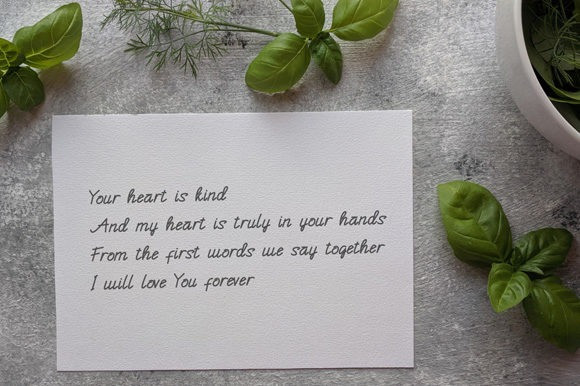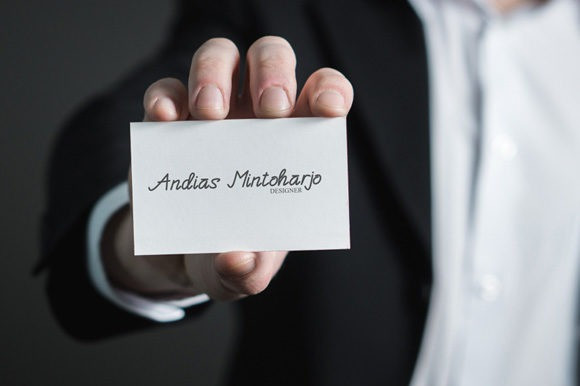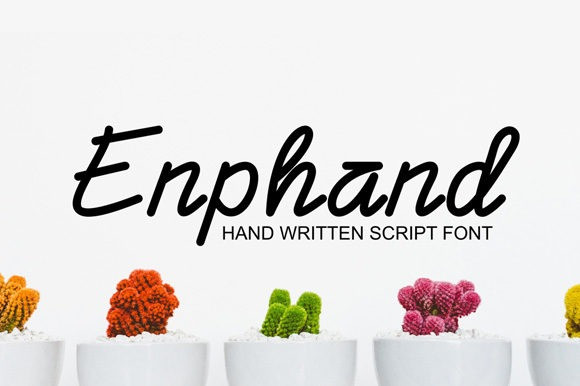
Enphand Handwritten Font
Enphand Handwritten Font is a stylish and charming handwritten font with a contemporary touch. This will add a unique spin to each design project.